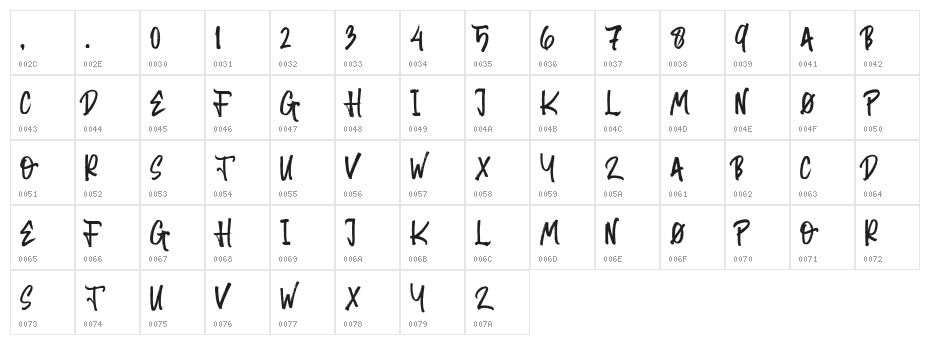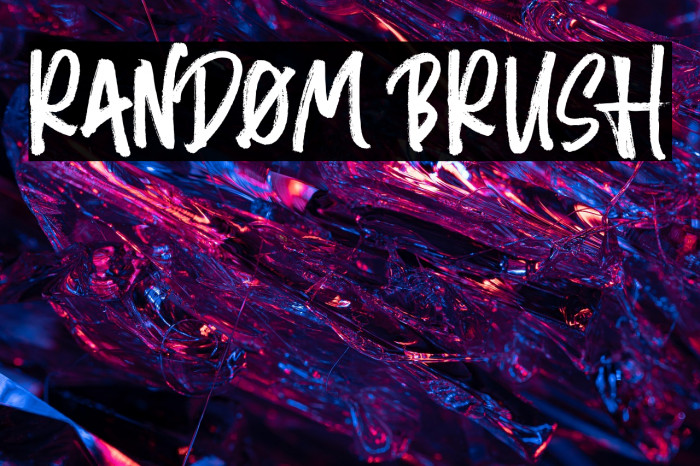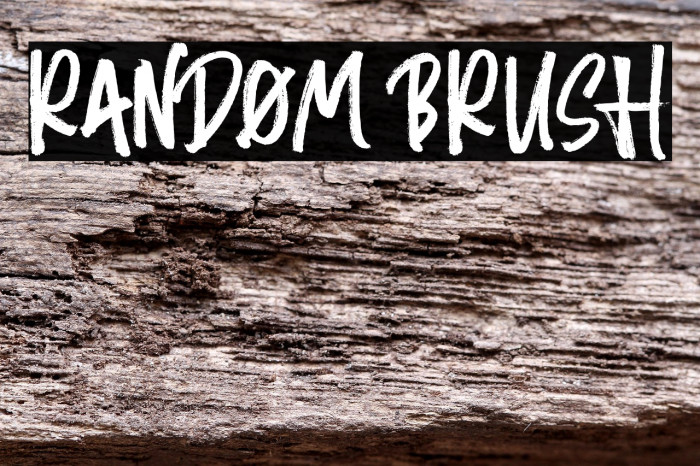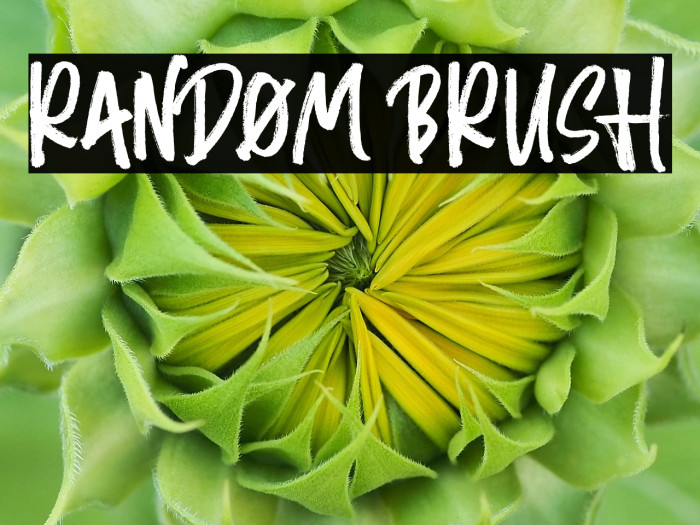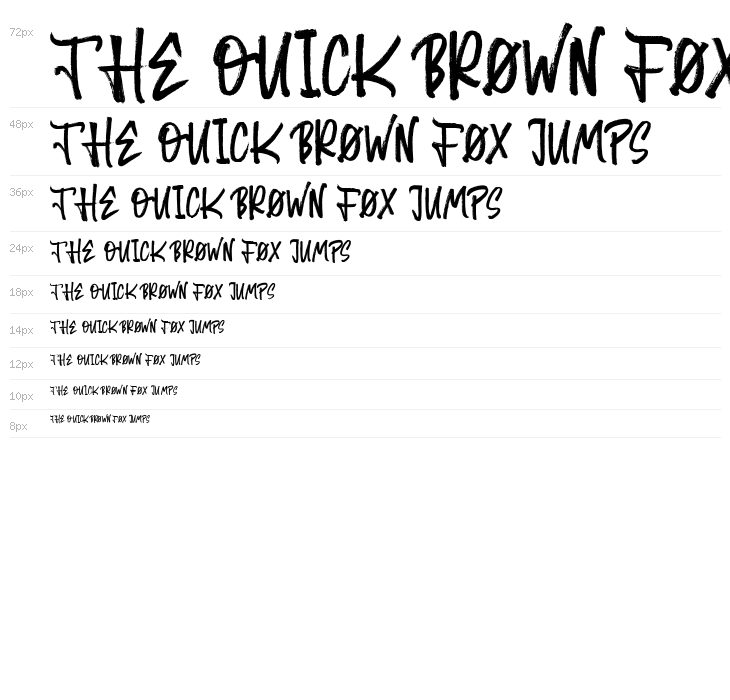
Random Brush Font
Random Brush Description
This font exudes a dynamic and energetic vibe, characterized by its bold, brush-like strokes that give it a hand-painted appearance. The letters are slightly irregular, adding a sense of spontaneity and creativity. The uppercase and lowercase characters maintain a consistent style, with a playful yet assertive presence. The numbers and special characters follow suit, ensuring a cohesive look across all elements. This font's natural flow and artistic flair make it ideal for projects that require a personal touch or a bold statement.
| Use Case | Logos, Headlines, Posters |
| Proposed Projects | Ideal for branding, posters, social media graphics, and creative projects that require a bold, artistic touch. |